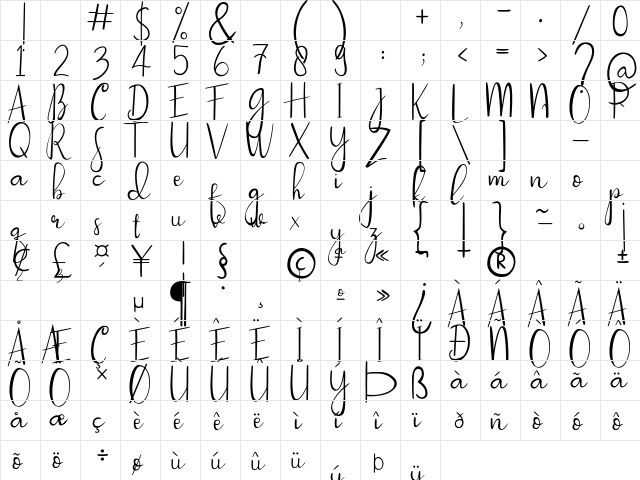
Passionate Regular Font Preview
Passionate Regular
Passionate Regular Font Details
| Foundry | Delafa Design |
| Designer | Milla Febriana Tanjung |
Design Context for Passionate Typeface
Passionate is a composed and adaptable typeface that performs quietly and consistently across a wide range of design contexts.